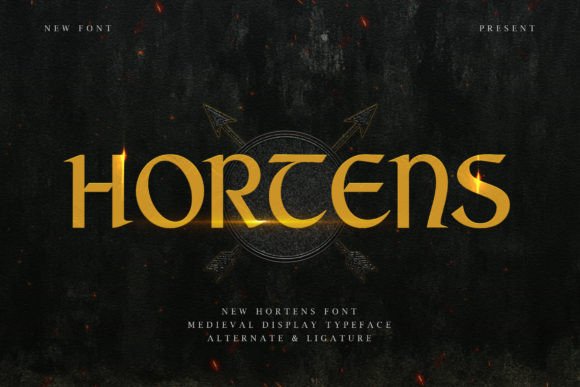
Step back in time and immerse yourself in the enchanting world of knights and castles with Hortens Font. Created by TypeFactory, this captivating display typeface is the ultimate choice for all your historic design needs. With its bold and angular letterforms, Hortens Font exudes a sense of grandeur that will elevate your designs to new heights.
Each letter in Hortens Font is meticulously crafted to resemble intricate carvings in stone, adding a touch of authenticity and medieval charm to your projects. Imagine the impact it will have on medieval-themed posters, fantasy book covers, or even the logo for a captivating medieval event. Hortens Font brings these designs to life, capturing the essence of a bygone era.
But Hortens Font doesn't stop there. Its versatility extends beyond the realms of history. This font is a true gem for editorial design, effortlessly infusing your articles and magazines with a touch of medieval inspiration. Let your words transport readers to a world where chivalry and honor reign supreme.
In the realm of video games, Hortens Font reigns supreme. Imagine embarking on epic quests, battling mythical creatures, and exploring ancient dungeons, all accompanied by a font that seamlessly blends with the game's medieval aesthetics. From game titles to in-game dialogues, Hortens Font adds an immersive layer that captivates players and transports them to a world of fantasy.
But why limit yourself to traditional mediums? Unleash your creativity and let Hortens Font bring your wildest ideas to life. Its medieval-inspired charm is perfect for designing packaging for specialty beers, creating captivating social media posts, or even crafting visually stunning wedding invitations that transport guests to a magical bygone era.
With Hortens Font, your designs will evoke emotions and captivate hearts. Its emotional impact is undeniable, making it the font of choice for those seeking to create a lasting impression. Its rich history and captivating aesthetics make Hortens Font a must-have for designers, artists, and creatives alike.
So, why settle for ordinary when you can embrace the extraordinary? Step into the world of Hortens Font and let its timeless beauty elevate your designs to new heights. Unleash your creativity and embark on a journey through history with this remarkable font that will leave a lasting impression on all who encounter it.